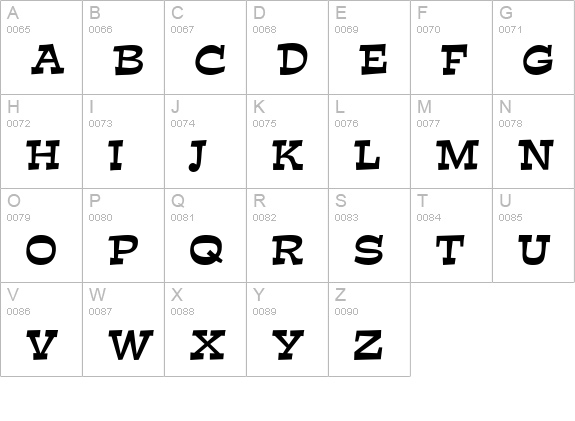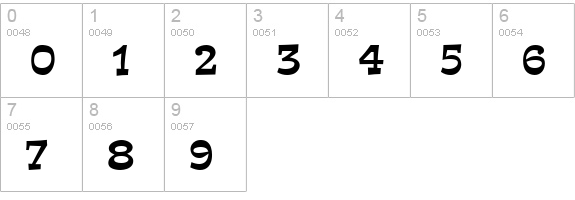
Expo Font Details
Expo font is a versatile and modern typeface that brings a touch of elegance to your design projects. With its clean lines and sleek appearance, Expo font is perfect for a wide range of applications, from branding to editorial design. This font exudes sophistication and style, making it ideal for creating eye-catching headlines and titles. What makes Expo font even more appealing is that it is completely free to download. You can easily access this stylish font at FontsMarket.com, where you can find a wide selection of high-quality fonts for all your design needs. Don't miss out on the opportunity to enhance your projects with the stunning Expo font, available for free download now!